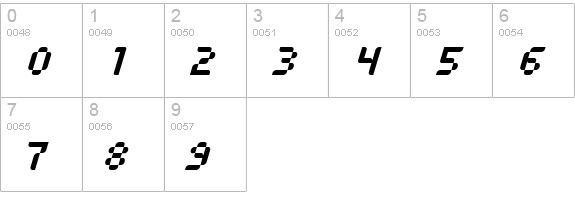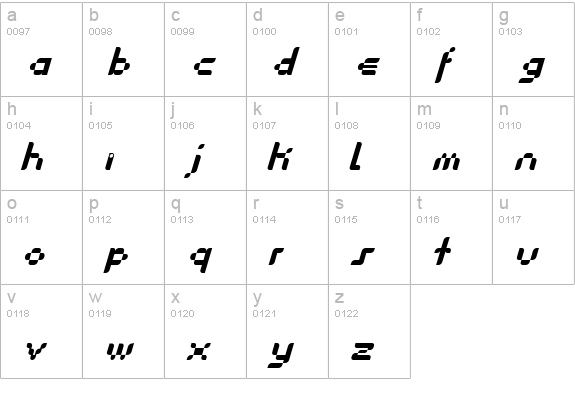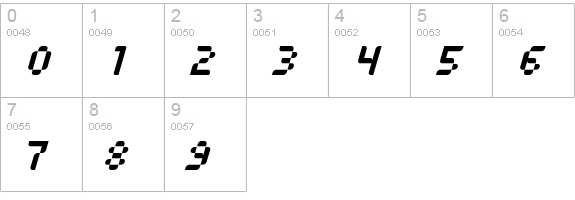
Anasthesia Italic Font Details
Anasthesia Italic is a distinctive, italic variant in the Anasthesia typeface family \xE2\x80\x94 well suited to design and typography projects.
Anasthesia Italic font is a beautifully designed typeface that exudes elegance and sophistication. Its sleek and stylish appearance makes it perfect for use in a variety of design projects, whether for branding, packaging, or editorial purposes. The italicized style adds a touch of flair and personality to any text, making it stand out and capture attention. What sets Anasthesia Italic font apart is not just its stunning aesthetics, but also the fact that it is available for free download at FontsMarket.com. This means that you can easily access this high-quality font without any cost, making it a valuable addition to your font collection. Embrace the beauty and versatility of Anasthesia Italic font in your next creative endeavor and elevate your designs to new heights.